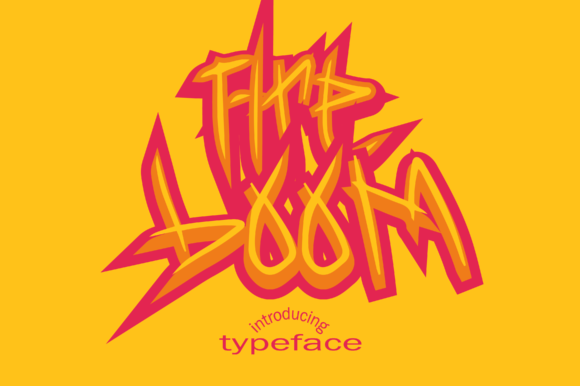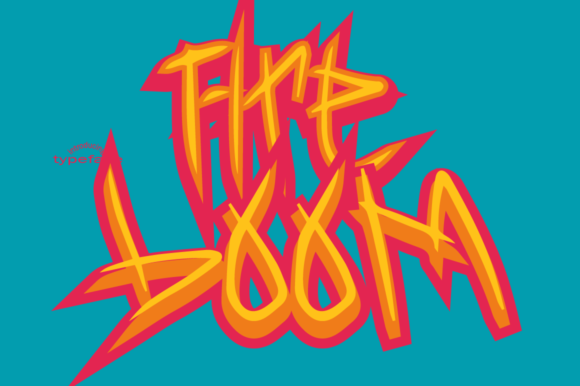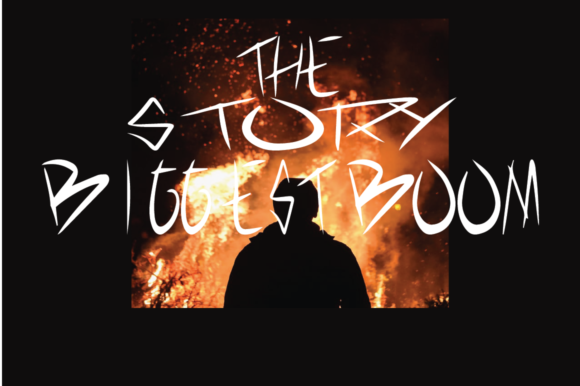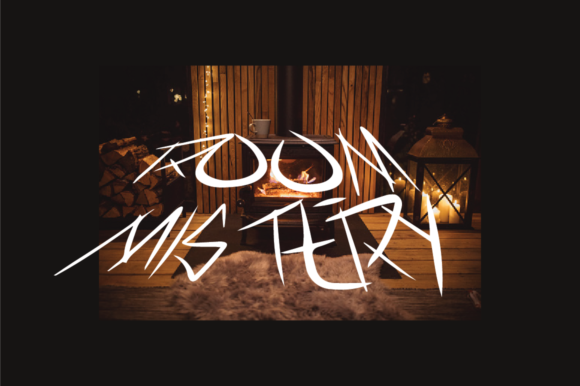
The Spark That Ignites Your Design
Have you ever been brainstorming a new project and suddenly, a burst of creativity hits you like a ray of sunshine on a cloudy day? That’s what happened to us when we discovered the Fire Boom Font – a stunning display font that adds an extra layer of excitement to any design.
Fire Boom Font is more than just a font; it’s a statement piece that demands attention. Its bold and playful nature makes it perfect for adding a touch of whimsy to your creative projects. Whether you’re designing a logo, a social media campaign, or a branding strategy, this font is sure to elevate your work and leave a lasting impression on your audience.
Key Features of Fire Boom Font
- Font Family: Fire Boom is a display font, with a bold and energetic feel. It’s ideal for use in headings, titles, and other attention-grabbing text.
- Size: Fire Boom comes in a range of sizes, from 12pt to 72pt, allowing designers to scale the font to suit their needs.
- Resolution: The font is designed to be resolution-independent, ensuring it looks great at any resolution, from low-resolution screens to high-end printing.
- Unique Characteristics: Fire Boom features a unique blend of geometric and organic shapes, with bold lines and dynamic curves. This gives the font a distinctive, energetic feel that’s perfect for modern designs.
- Character Set: The font includes a wide range of characters, including uppercase and lowercase letters, numbers, punctuation marks, and special characters.
Fire Boom Font Review
As a designer, I was excited to dive into the Fire Boom Font and see what it had to offer. The first thing that caught my eye was the bold, energetic vibe that this font exudes ✨. The mix of bold lines and playful curves creates a visually appealing aesthetic that’s perfect for modern branding and digital design.
One of the standout features of Fire Boom Font is its versatility ✨. It works beautifully for headlines, logos, and even body text, making it a great choice for designers who need a reliable font that can handle a variety of tasks.
- ✨ Bold and energetic aesthetic
- ✨ Versatile and works well for a range of design tasks
- ✨ Great for modern branding and digital design
- ⚠️ May be too bold for certain design applications (e.g. traditional printing)
- ⚠️ Limited range of font weights and styles
Overall, I’m impressed with the Fire Boom Font and think it’s a great addition to any designer’s toolkit. While it may not be suitable for every design project, it’s a fantastic choice for modern and energetic designs. With a few more font weights and styles to round out the collection, I’d give it a solid 4.5 out of 5 stars.
Practical Application Guide for Fire Boom Font
The Fire Boom Font is ideal for:
- Casual designs and graphics.
- Branding and logo creation.
- Social media graphics and posts.
To get the most out of the Fire Boom Font, try:
- Experimenting with different font sizes and styles.
- Mixing the font with other fonts for a unique look.
Alternatives to Fire Boom Font for Designers
The Great Vibes Font is a modern, elegant script font that is perfect for creating eye-catching headlines and titles. It’s ideal for use in branding, advertising, and editorial design. Great Vibes Font has a more refined and sophisticated look compared to Fire Boom Font, which is bolder and more playful.
The Pacifico Font is a beautiful, cursive script font that is great for creating a relaxed and casual atmosphere. It’s perfect for use in packaging, labels, and other design elements where a friendly and approachable tone is desired. Pacifico Font has a more laid-back and organic feel compared to Fire Boom Font, which is more energetic and dynamic.
Q: What is the character set and language support for the Fire Boom Font?
The Fire Boom Font includes a comprehensive character set, including Latin, Cyrillic, and Greek alphabets, as well as a range of punctuation and symbol characters. It also includes support for many languages, including English, Spanish, French, German, Italian, Portuguese, and more. The font’s language support can be customized and expanded using OpenType features.